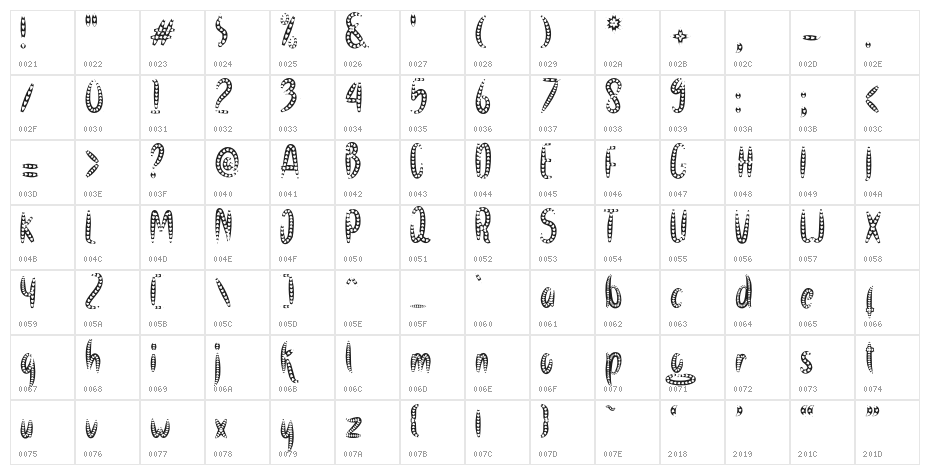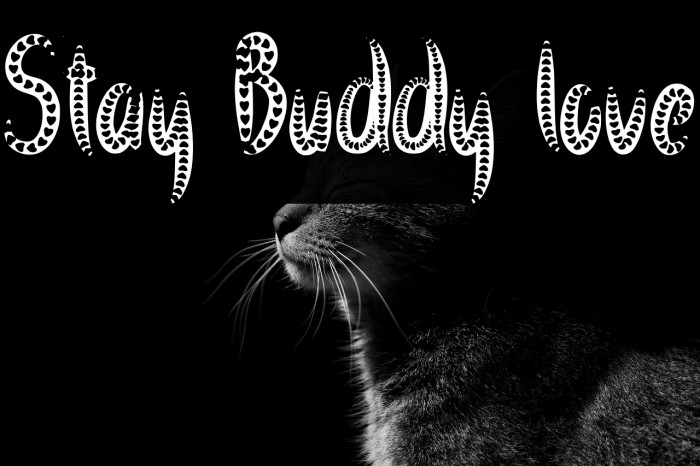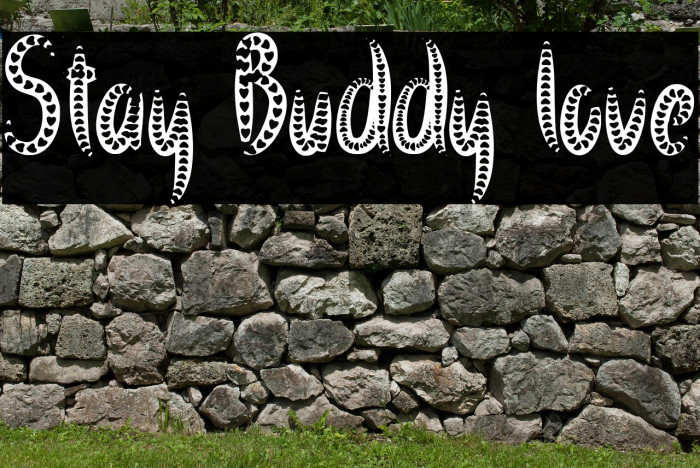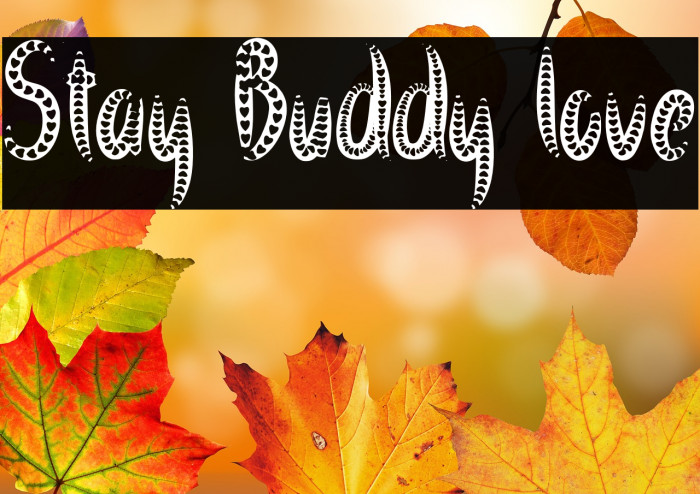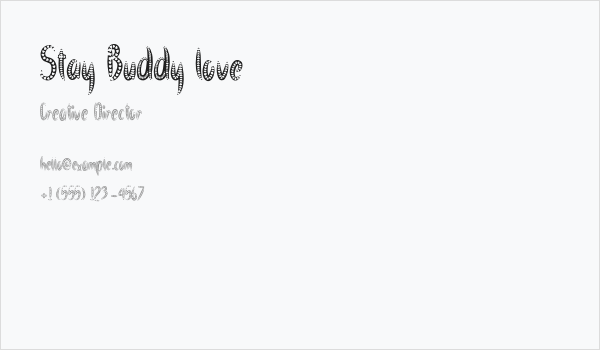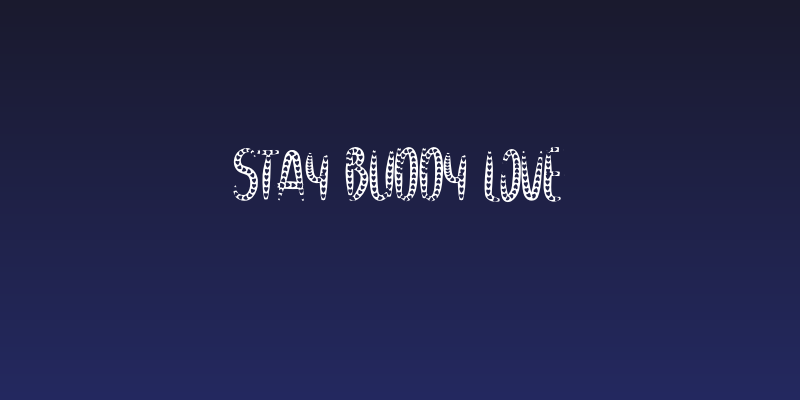
Stay Buddy love Font
Stay Buddy love Description
This playful and whimsical font features a unique design with heart-shaped cutouts embedded within each character, giving it a lively and decorative appearance. The letters are bold and rounded, with a consistent pattern of hearts that adds a touch of fun and creativity. The font maintains a uniform thickness throughout, with slightly exaggerated curves and loops that enhance its playful nature. It is highly decorative, making it ideal for projects that require a touch of whimsy and charm. The numbers and special characters follow the same heart-themed design, ensuring a cohesive look across all elements.
| Proposed Projects | Ideal for children's books, playful invitations, greeting cards, and festive posters. |